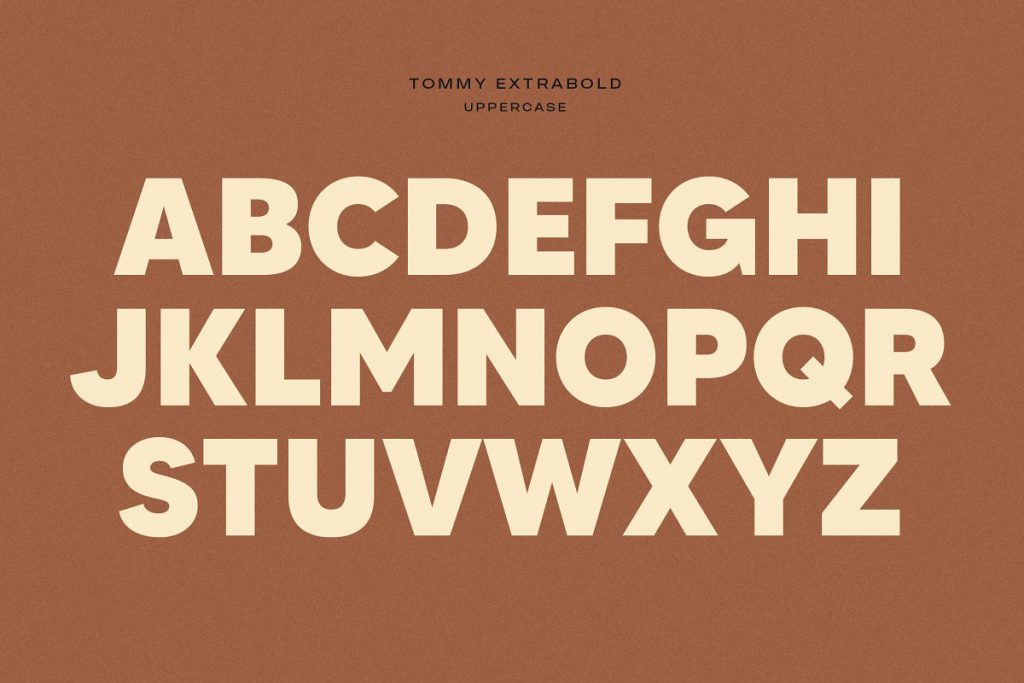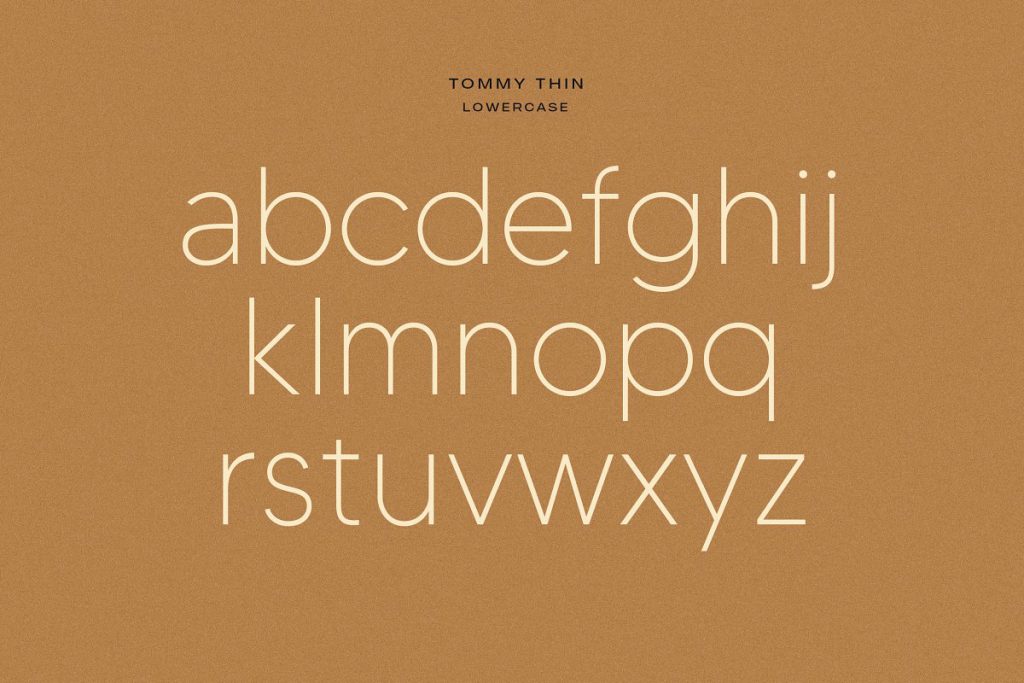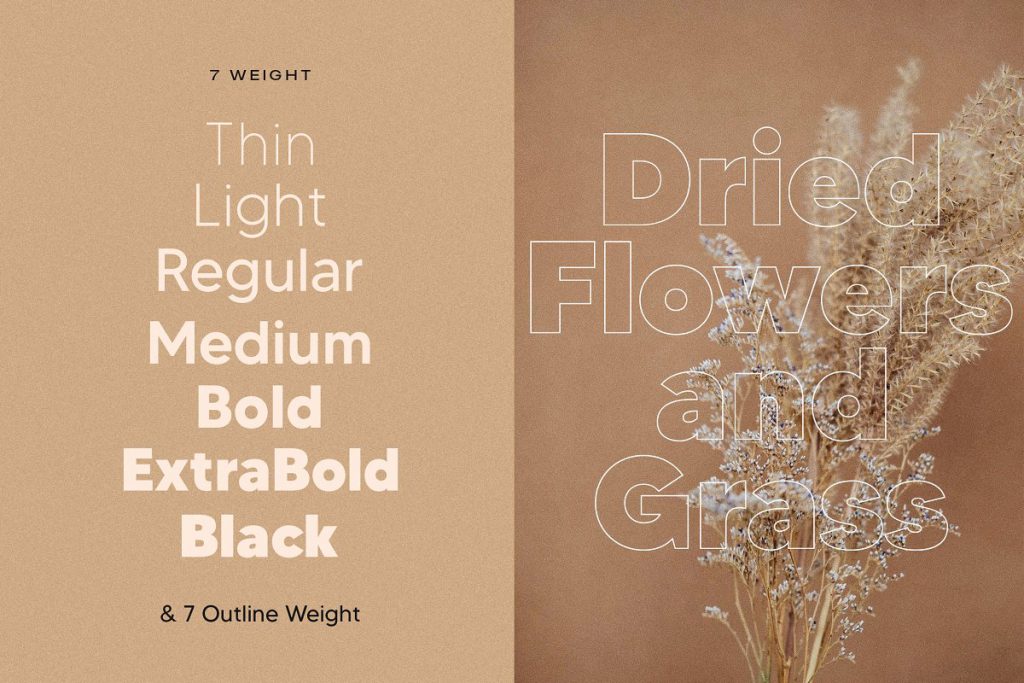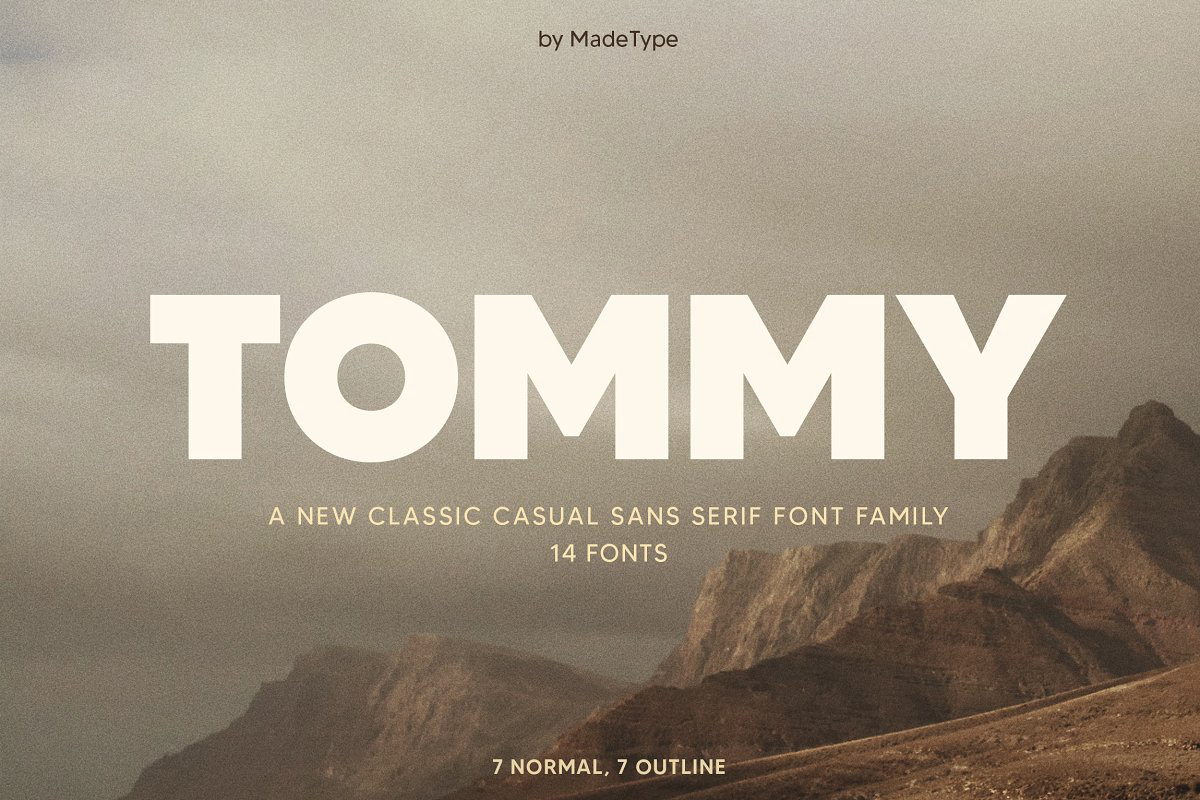
Tommy Sans Serif Font
Tommy Sans Serif Font is a new classic casual sans serif font family. This font family includes: 7 normal and 7 outline style. This is the perfect font family for many kind of projects you can think of! As we can see, the font looks great for fashion magazines, logo, branding, photography. It is also perfect for prints such as invitations, poster, packaging, postcard, and books.